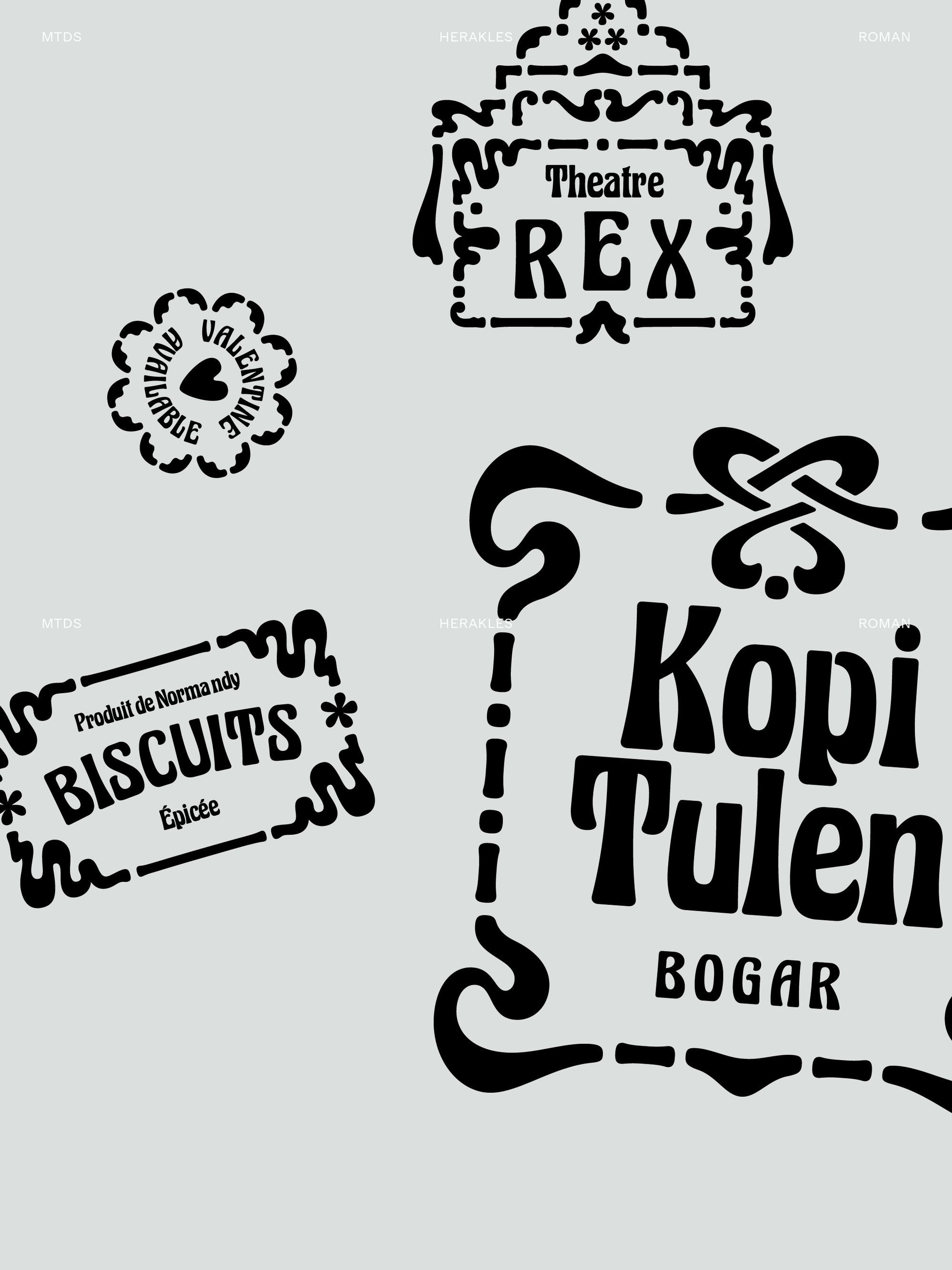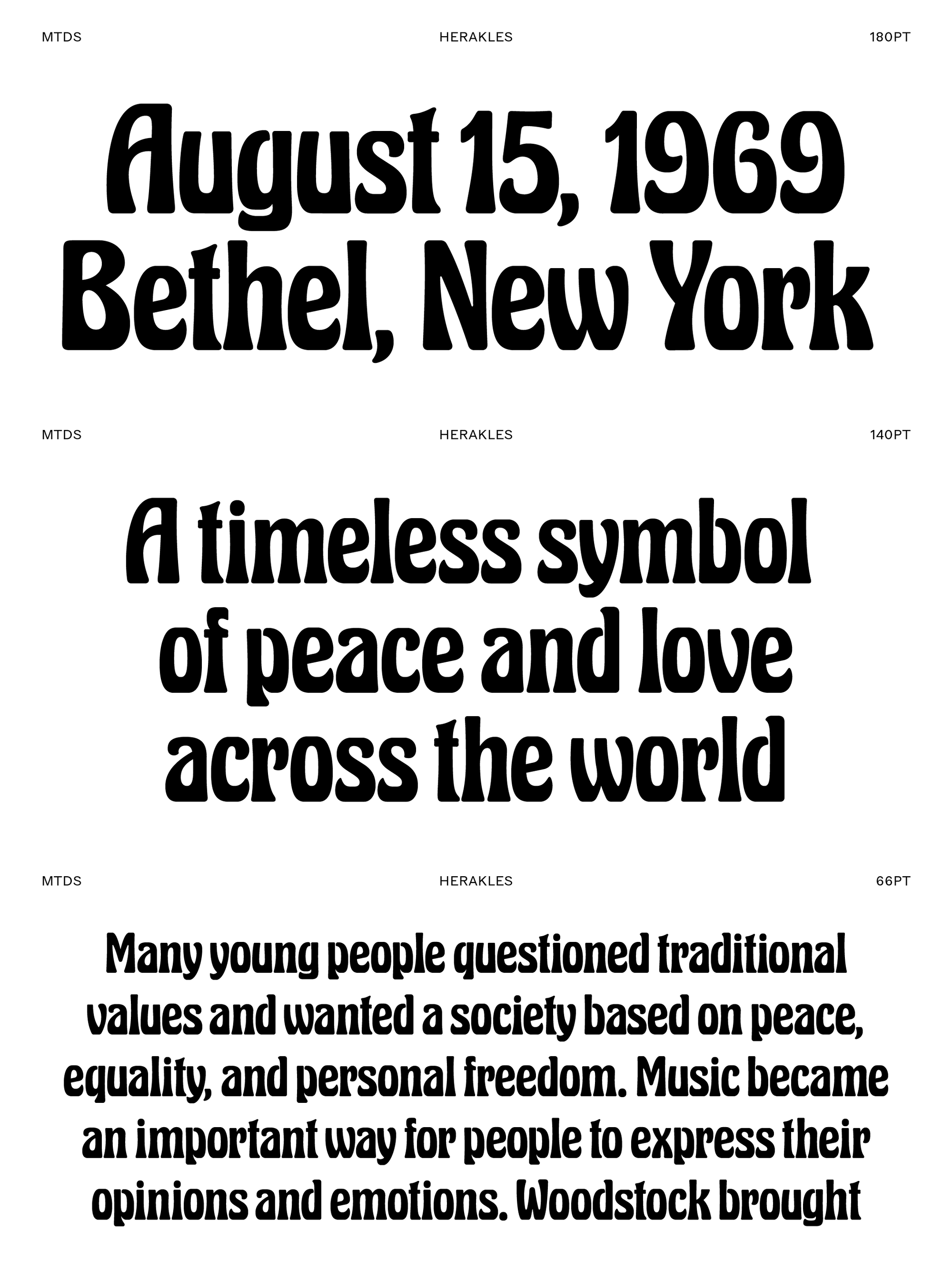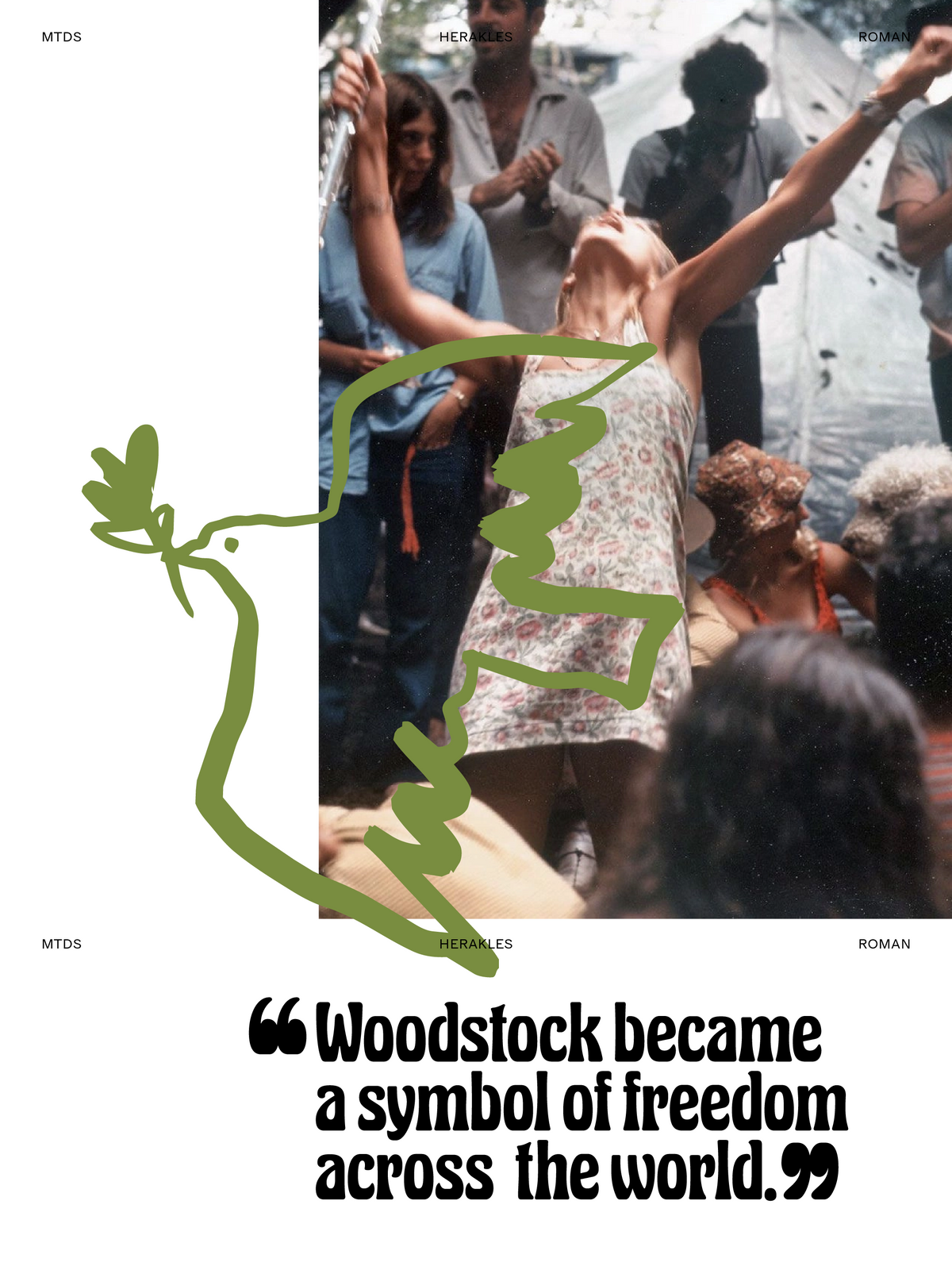
Herakles
First released by the Haas Foundry in 1899 as Herkules; this is a wonderfully eccentric display face that captures the decorative energy of the Art Nouveau era. It enjoyed a revival in the 1970s as part of Letraset’s dry transfer sheets but is otherwise an underappreciated typographic gem.
Its most distinctive feature is an exaggerated weight distribution, with the majority all of the visual weight resting on the baseline. The result is a typeface that feels surprisingly solid and punchy, balanced by soft, rounded curves that keep it approachable and full of charm.
This revival stays as faithful to the original while bringing it in line with current design standards. The character set has been significantly expanded, making it more versatile than previous digitisations while preserving the quirks that give the design its identity.
Extended language support, including Vietnamese, has been added, along with a bevy of symbols and ornaments drawn to match. Herakles isn’t the kind of typeface you’d normally choose for body copy, although there's something appealing about the idea of filling a page with it. Where it shines is in display work. Set a single word in Herakles and it instantly feels like a logo.
Headlines, posters, packaging, and branding all benefit from its unmistakable silhouette and lively character. It has the rare ability to make even the simplest word feel expressive.
Herakles is available in a single style, and it doesn’t need anything more. A revival that understands what made the original so memorable: an unapologetically bold design with enough warmth and eccentricity to feel just as fresh today as it did more than a century ago.